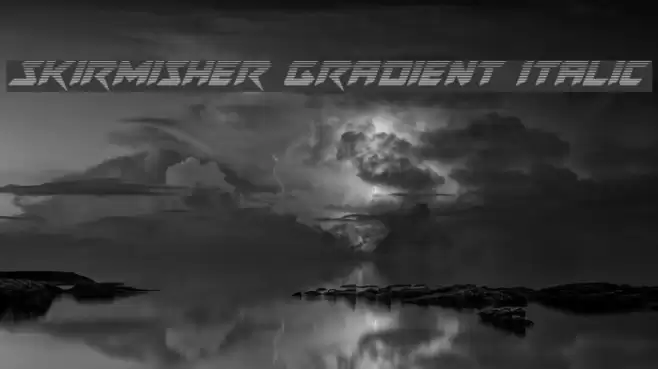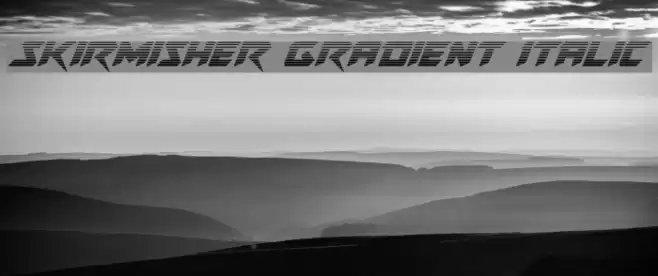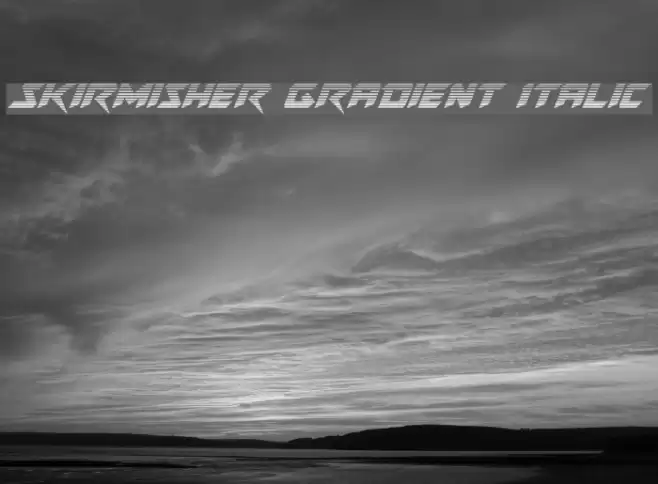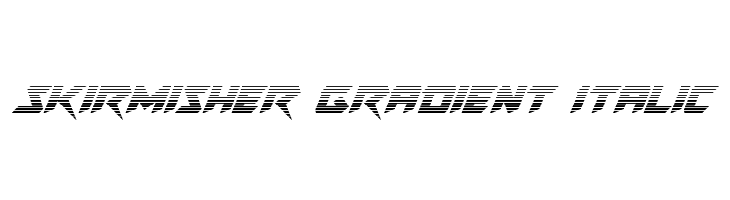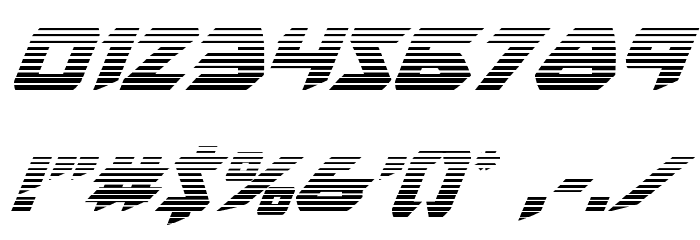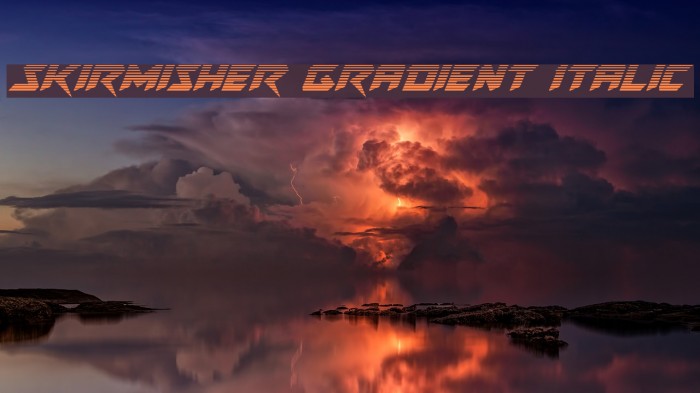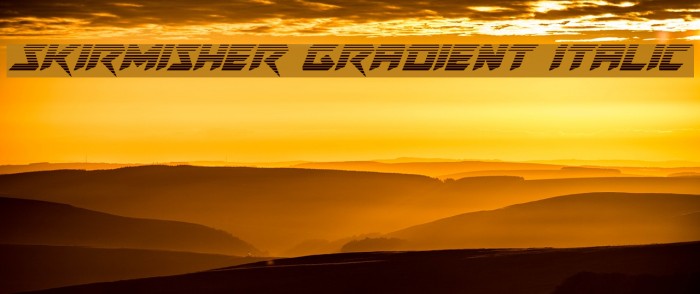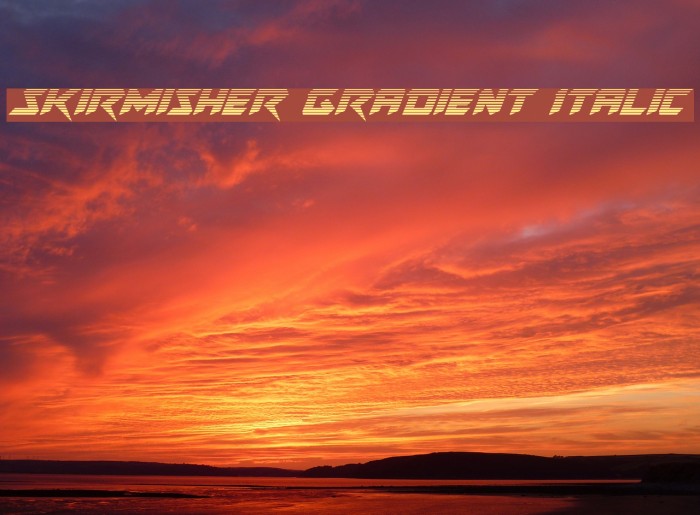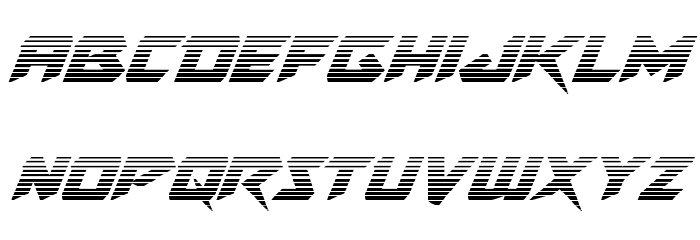
Skirmisher Gradient Italic Font
Skirmisher Gradient Italic Description
This font features a dynamic and futuristic design with a gradient effect that gives each character a sense of movement and energy. The italicized style enhances the forward-leaning motion, making it ideal for projects that require a modern and edgy look. The characters are composed of horizontal lines that create a striped pattern, adding depth and texture. The sharp angles and geometric shapes contribute to its bold and assertive appearance, making it suitable for attention-grabbing headlines or logos.
A dynamic, futuristic italic font with gradient stripes and sharp angles from Uncategorized fonts.
- Proposed Projects: Ideal for sports branding, tech company logos, video game titles, and futuristic-themed posters.
- Overall Style: Futuristic, Dynamic